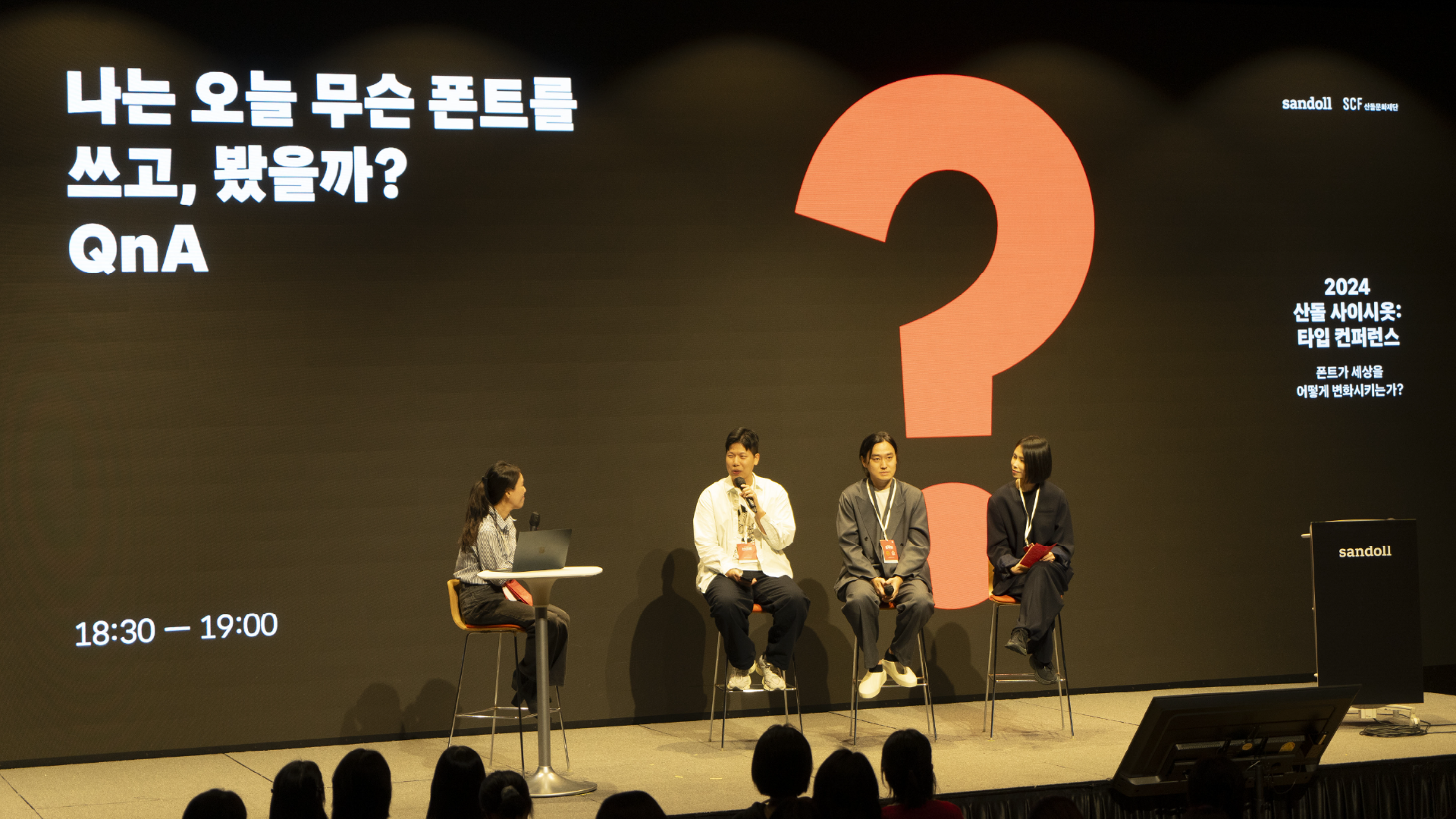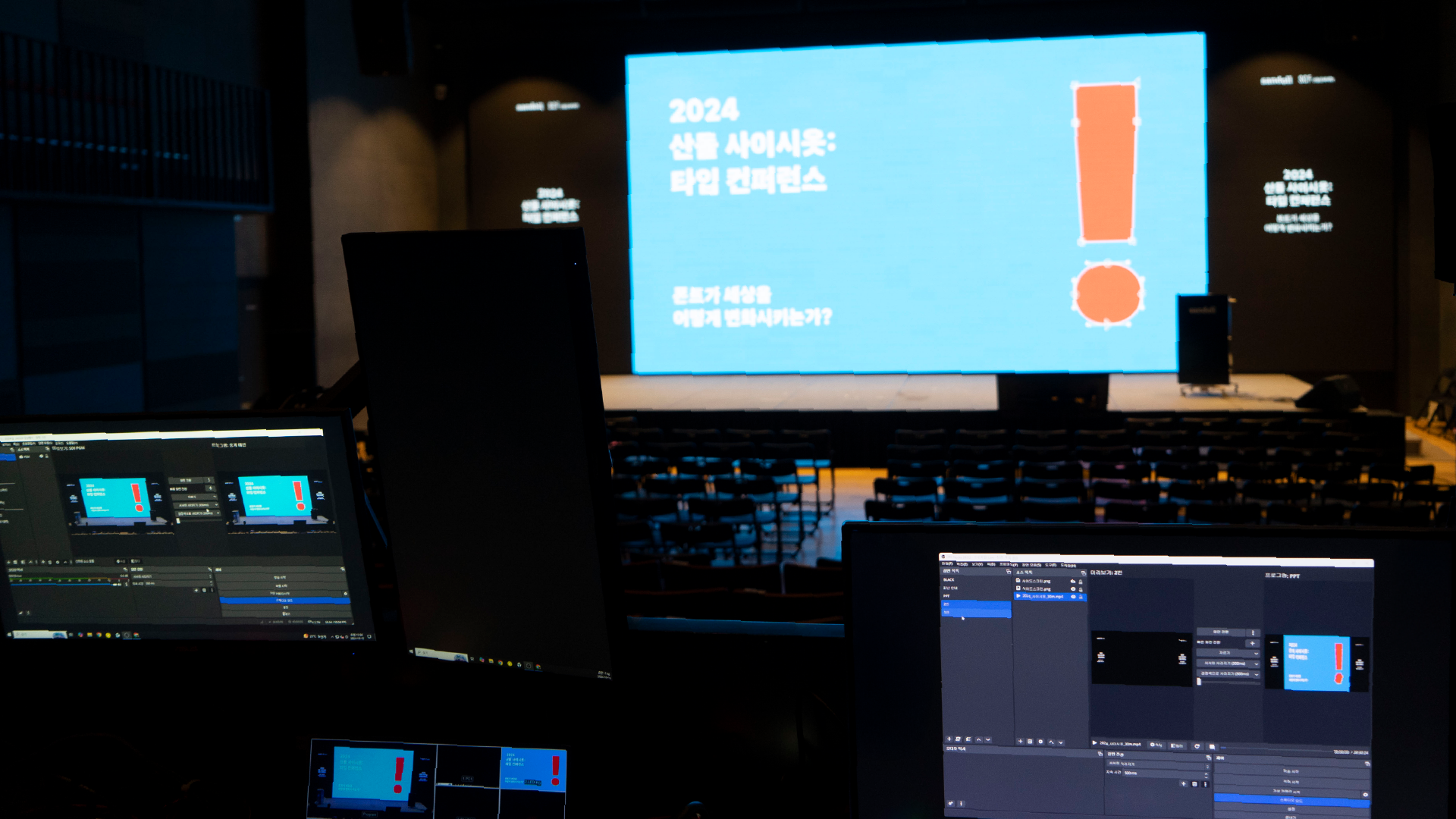
Gathering Voices
We were curious about the perspectives of those who use fonts. What kinds of challenges they face in their day-to-day work, and how fonts help address those challenges. We wanted to hear from experts across different fields whether fonts are truly changing the world—and to share those insights in their own, authentic voices. For this reason, a key goal in shaping this year’s program was to bring together professionals from a wide range of design disciplines, including UX, BX, graphic design, advertising, and editorial. Thanks to the many voices who responded to Sandoll’s call, we were able to share these conversations with you.
Following Part 1 (Link), we would like to briefly introduce the lectures from [2024 Saisiot] for those who were unable to join us on site.
New Environments Call for New Fonts: 「SD Minburi」
Speakers: Everyday Practice – Kim Gyungcheol, Kwon Junho, Sandoll – Lee Youbin
Moderator: Lee Suhyun
「SD Minburi」 (Link) is Sandoll’s new text typeface that continues the lineage of the Sandoll Gothic Neo series. In this opening session, the speakers explored the background, research, and testing process in depth.
The environments surrounding type have evolved over time. Sandoll divided these changes into production, display technology, and user preferences, putting forth the premise that “new environments call for new fonts.”
Sandoll covered the hypothesis testing and development story behind 「SD Minburi」, while Everyday Practice applied the typeface to existing design work for comparison. Junho Kwon explored its application in offline media such as catalogues, posters, and covers. Gyungcheol Kim led tests applying 「SD Minburi」 within the “Design+” website environment.
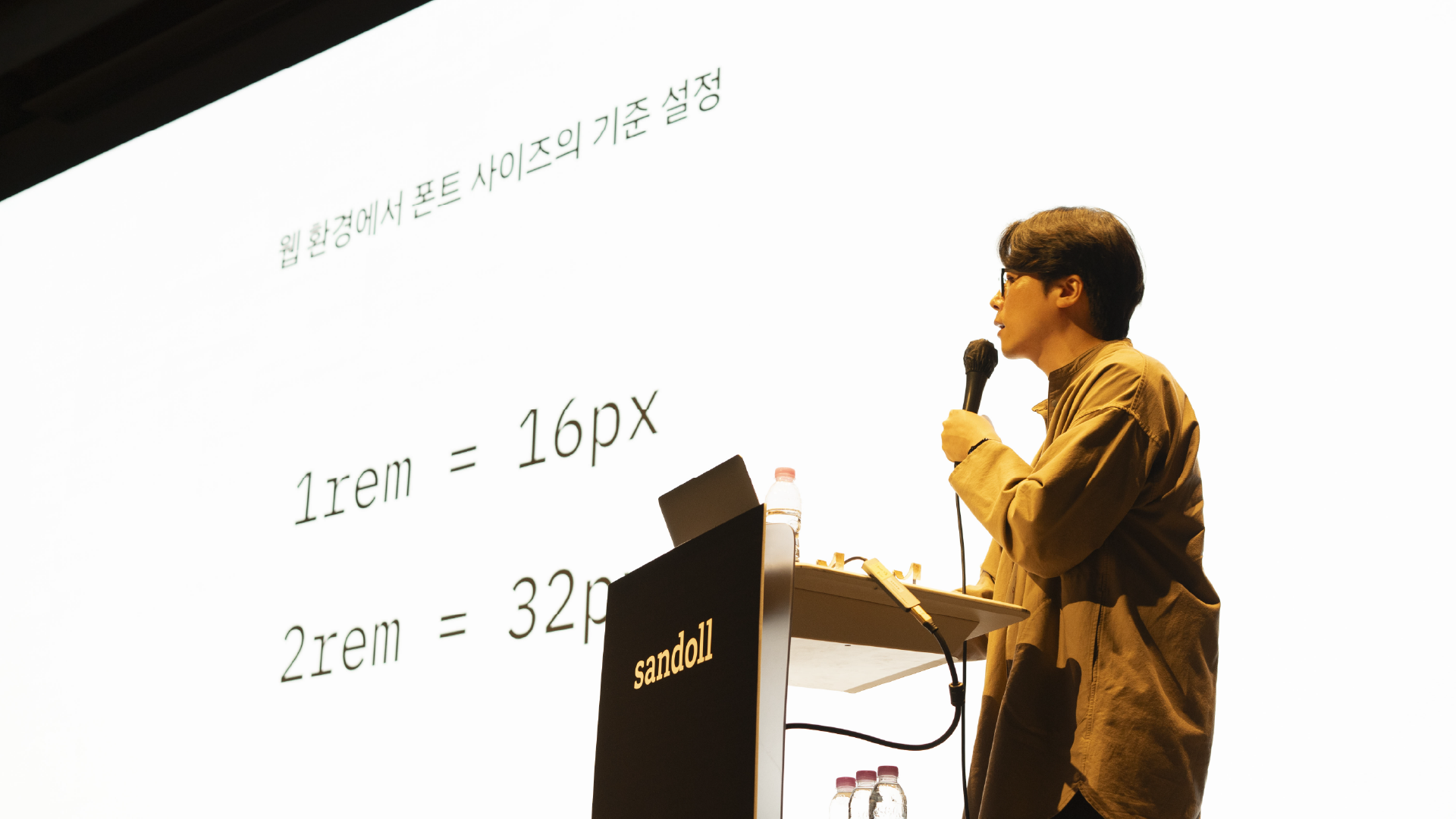
Brand + Fonts! Fonts? Fonts!
Speakers: Interbrand – Jang Junho
Moderator: Kang Minjae
This session demonstrated the impact of typography in brand identity building through a series of case studies. Using the example of E-pyeonhansesang’s “Sincerity Builds Homes,” the speaker showed how typography can define an emotional brand voice.
He emphasized that a custom font becomes both a part of the brand and the entire brand itself, outlining the considerations needed when designing one. It was a session filled with hands-on insights from the field. When the phrase “God is in the detail” appeared on screen, it was a reminder of how typography—the atomic element of design—changes the way a brand is perceived.
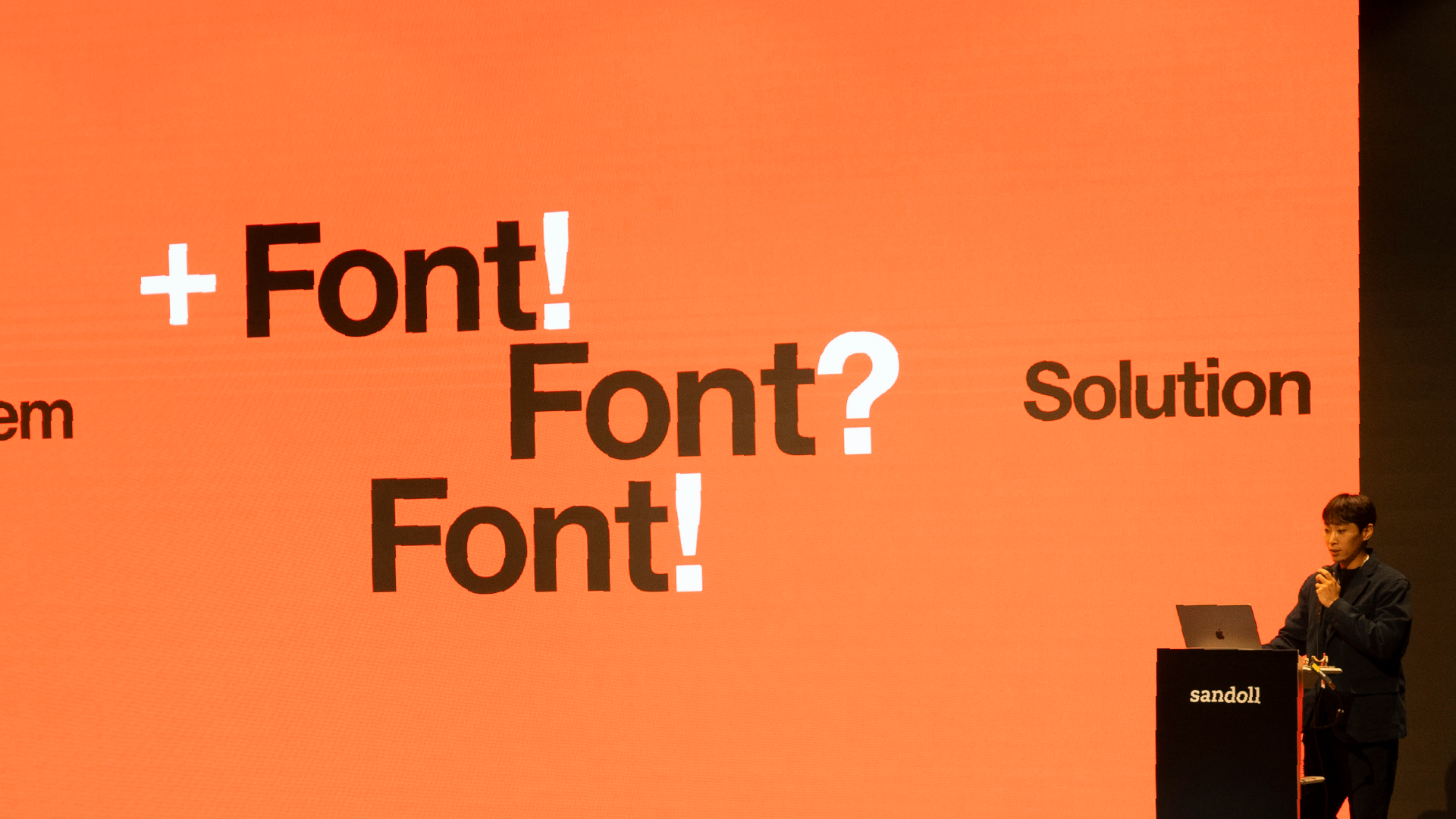
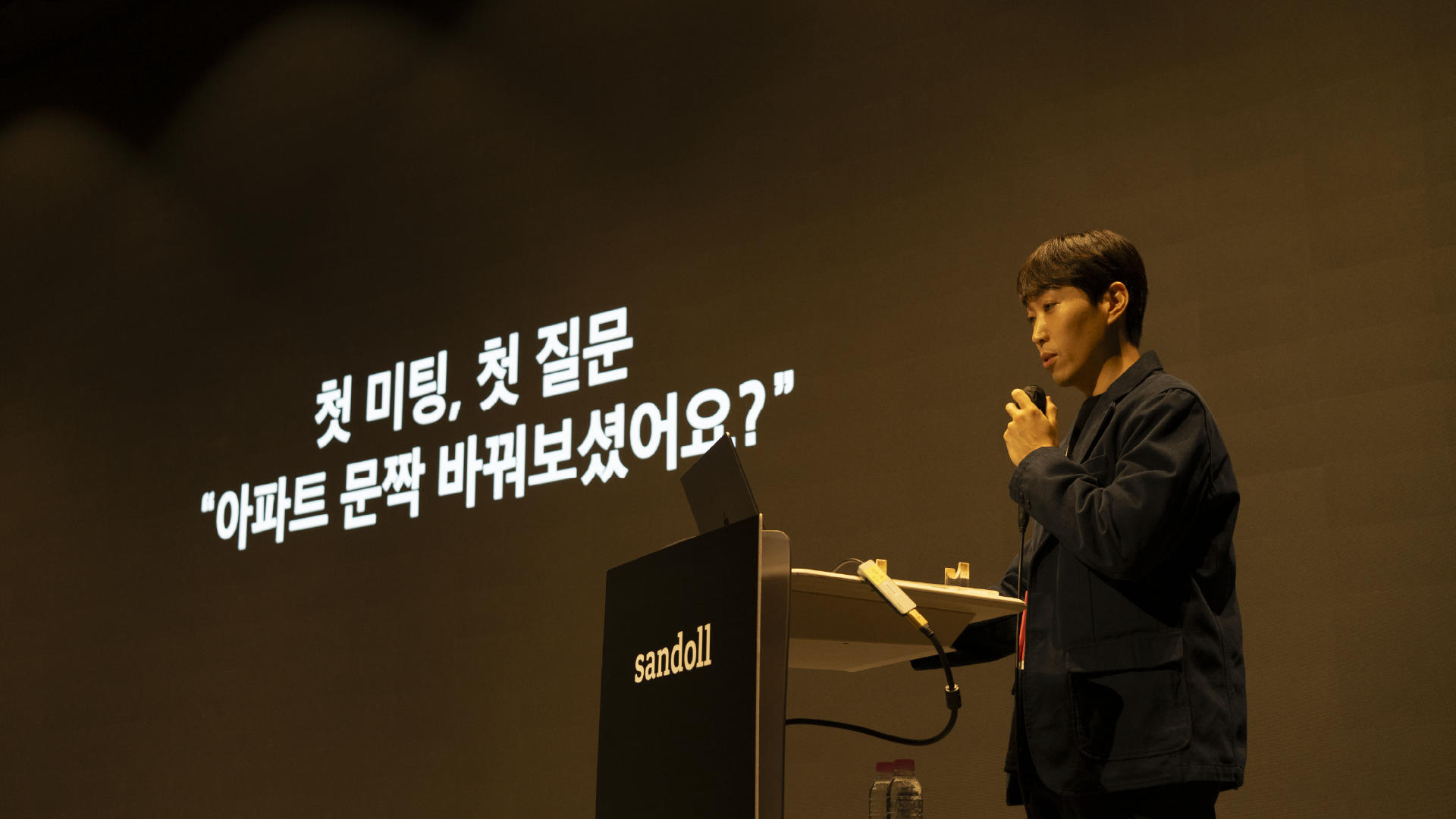
Fonts That Pay the Bills
Speakers: BAEMIN (Woowa Brothers) – Han Myungsoo
Moderator: Bae Seongwoo
BAEMIN’s fonts have moved beyond corporate branding to establish themselves as a form of visual culture that reflects the sensibilities of our time. The lecture offered an unfiltered look at why BAEMIN chose fonts as a core branding tool, as well as the process behind that decision and the outcomes it produced. BAEMIN has long treated fonts as a primary means of communication. Positioned on the fine line between uniformity and monotony, the talk explored how fonts contribute to shaping “BAEMIN-ness” and how the brand approaches consistency through typography. A more detailed account can also be found in the book Fonts That Pay the Bills, which shares the same title as the lecture. If you have an interest in fonts, you will likely find it an engaging read.
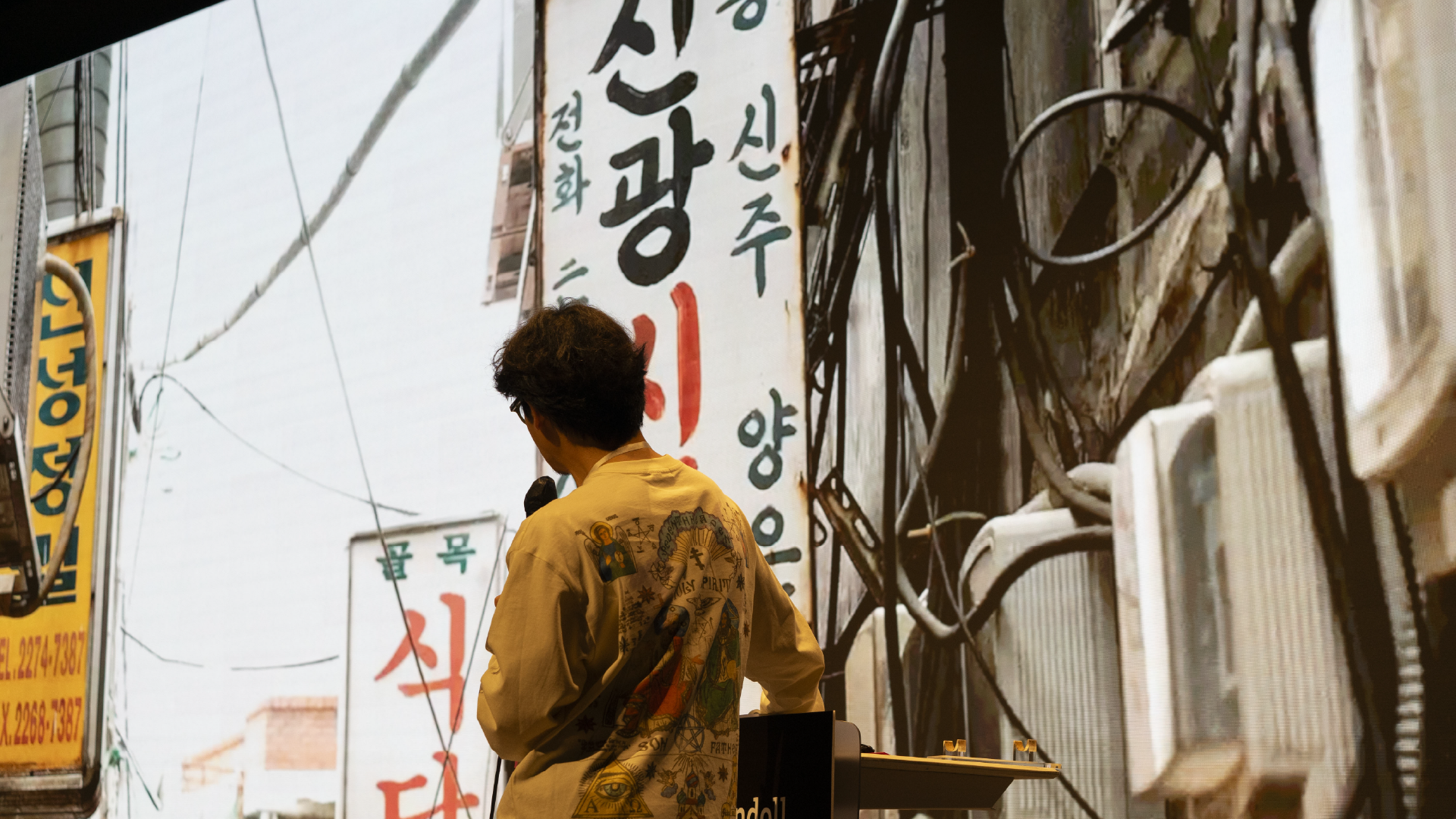
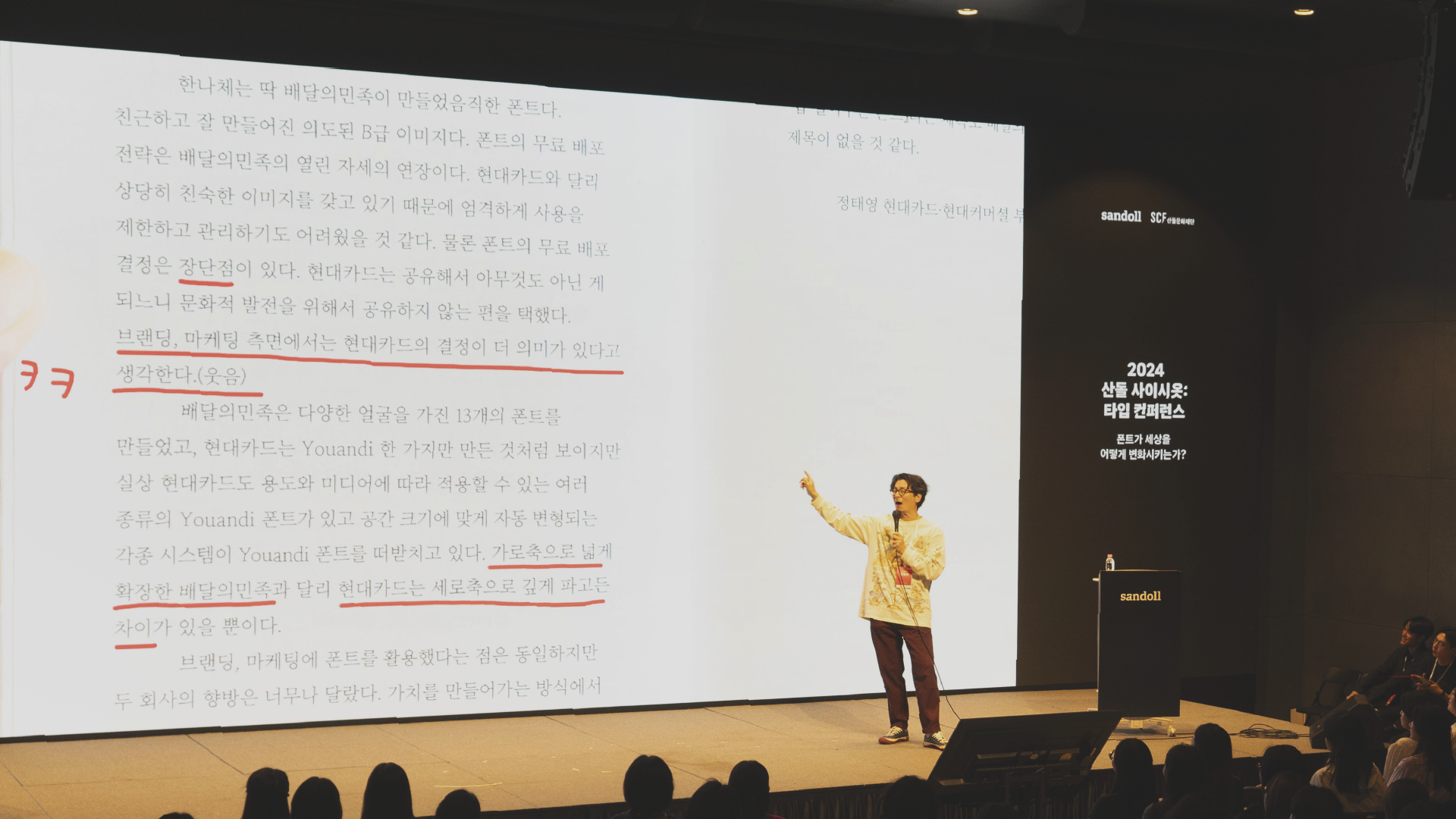
Emojis Start to Breathe
Speakers: Toss – Ko Hyunseon
Moderator: Bae Seongwoo
The lecture introduced the background and production process of 「TossFace」, an emoji font designed with Toss’s graphic style. Toss explored ways to improve work efficiency by turning emojis—one of the brand’s key visual assets—into a font. Beyond visual consistency, the talk shared how this approach fundamentally addressed issues such as development inefficiencies and problems caused by OS updates. In particular, when using OS-provided emoji fonts, it was impossible to control variations caused by different OS versions. With 「TossFace」, Toss was able to deliver a consistent experience regardless of OS version. The lecture examined new possibilities for fonts as problem-solving tools that drive meaningful gains in efficiency.
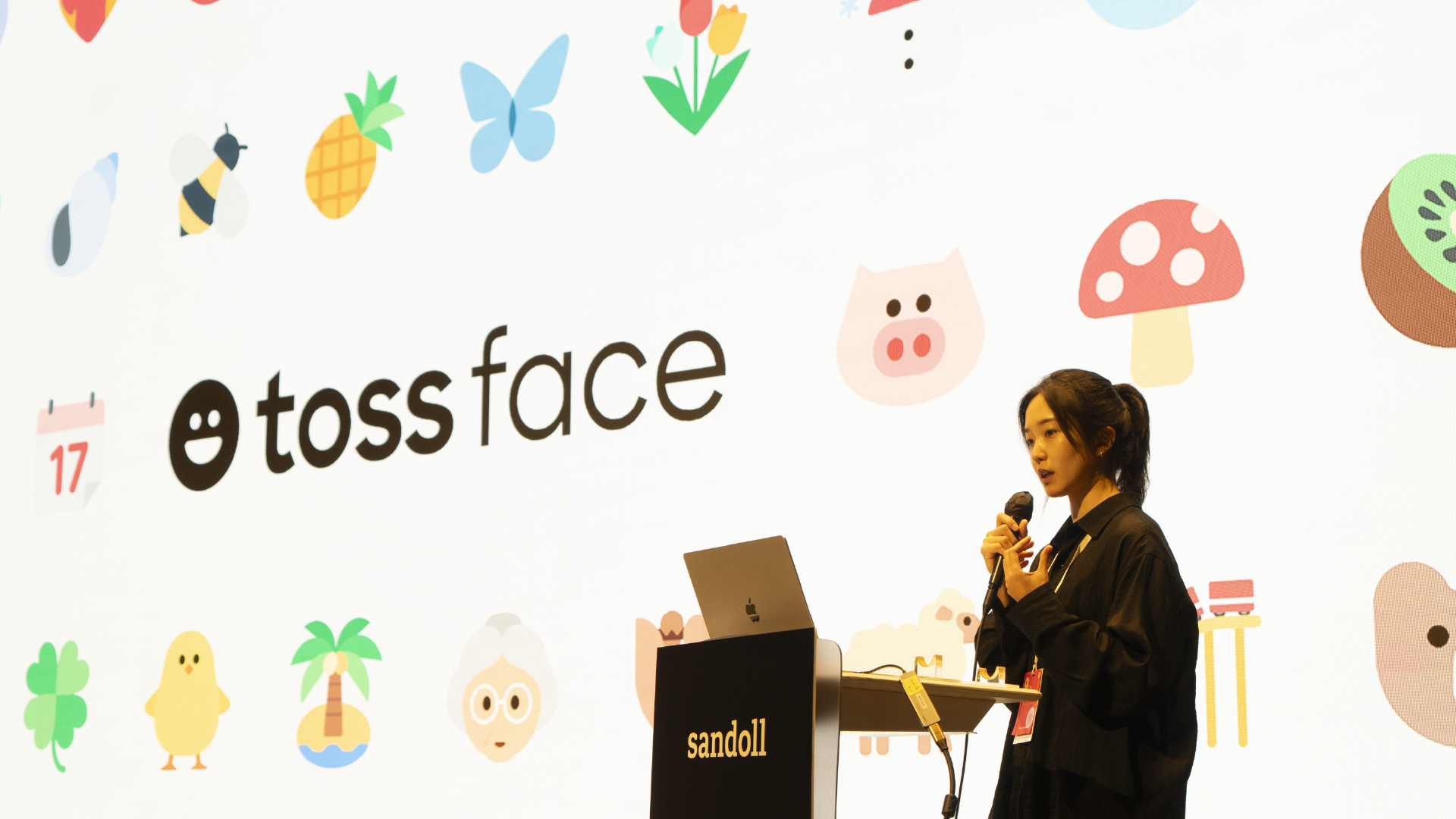
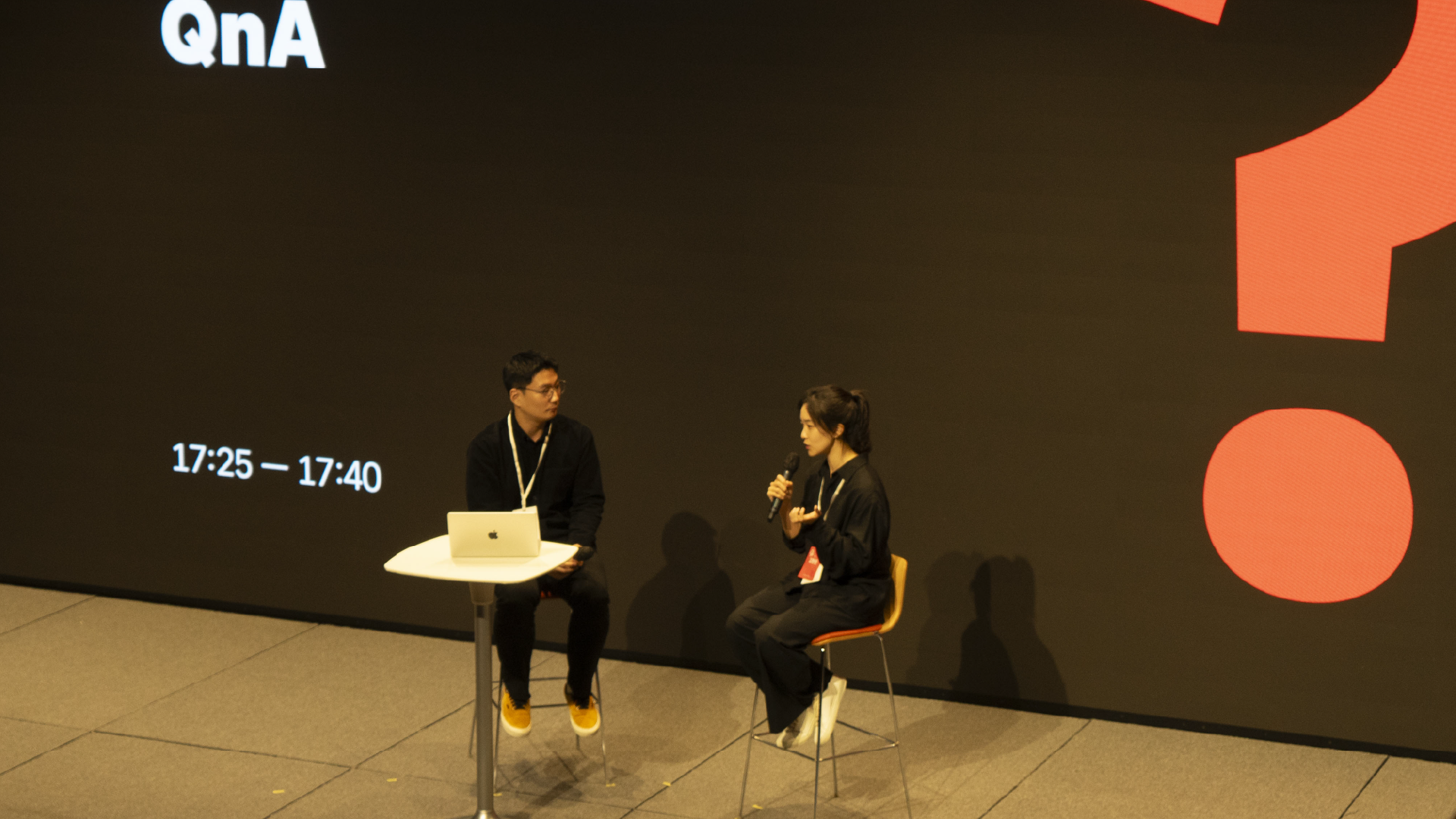
What Fonts Did I Use—and See—Today?
Speakers: Sandoll – Kim Chorong
Panel: Formula – Shin Gunmo, Studio Joh – Song Jaewon, Ham Jieun
This lecture analyzed and shared extensive font usage trends across different design fields. Participants were able to review a wide range of statistics based on criteria such as font categories, letterform construction, stroke contrast, and usage. Building on the shared data, the discussion examined real-world applications with industry professionals from graphic design (Gunmo Shin), advertising and video (Jaewon Song), and book and publishing (Jieun Ham). The lecture offered candid insights into the factors that influence font selection and the fonts most frequently used in practice. It also explored recent and notable design directions across the industry, including trends that diverge from established patterns, to trace broader shifts and changes in font usage. Finally, referencing the theme of [2024 Saisiot], the panelists shared their perspectives on whether fonts can change the world.
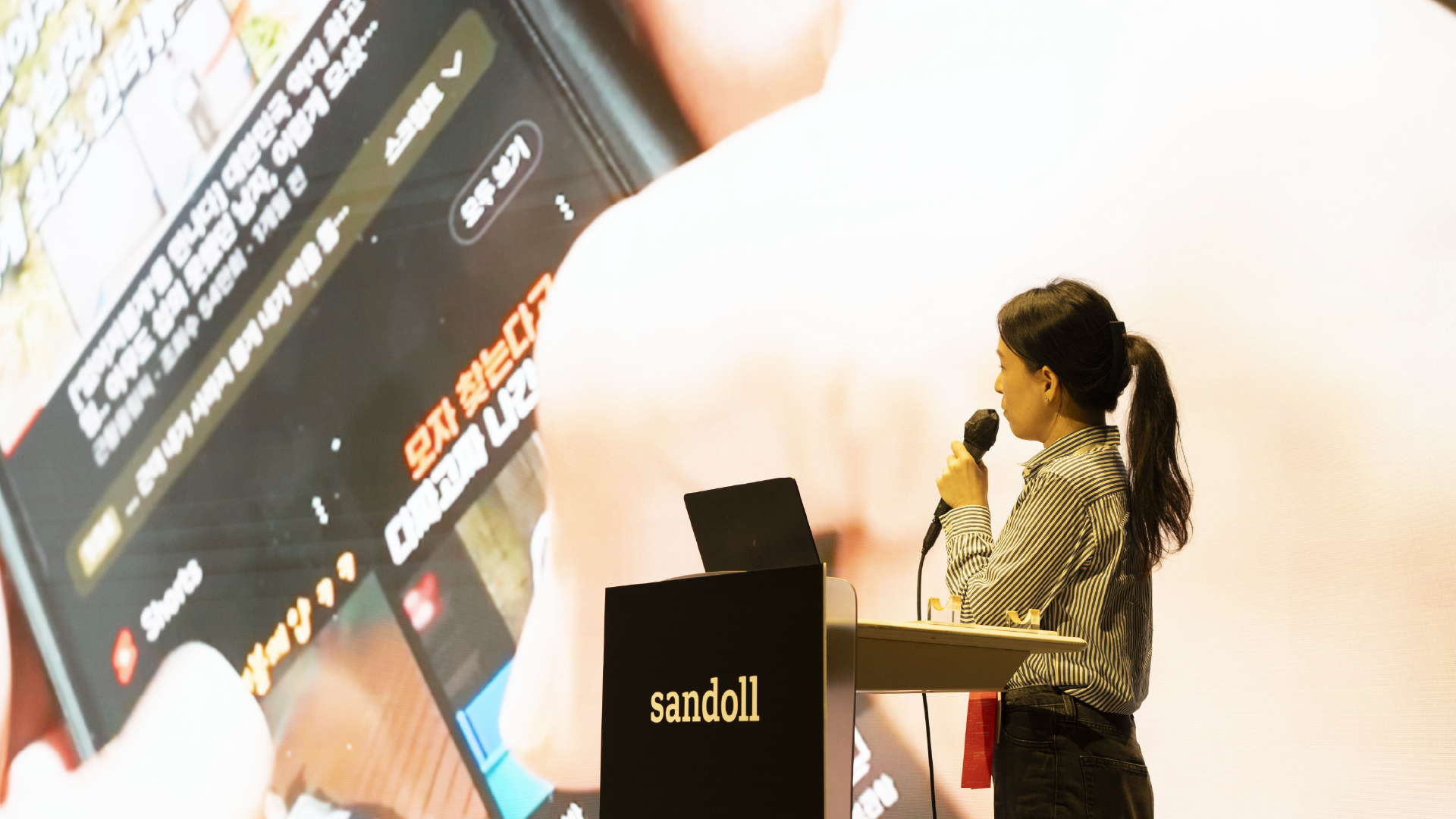
Can Fonts Change the World?
Ham Jieun, Book Designer
In publishing, we can feel the shift. Cloud-based type services have improved usability and created more freedom around licensing. Fonts, I believe, shape the visual landscape of everyday life. Small things accumulate—and together, they can change the world.
Song Jaewon - Studio Joh
Fonts alone can’t stop a war—so in that sense, no. But if you redefine what “the world” means, then yes, absolutely. Fonts sharpen the resolution of communication. Most conflicts begin with miscommunication. If the subtlety of typography expands into other communication fields, it affects outcomes. The difference may be only 1 millimeter, invisible to most—yet deeply significant to us. Over time, that greater clarity can change the world.
[2024 Saisiot] was a space that went beyond the font industry to explore the potential of fonts and share their possibilities. By examining how fonts, as tools, can influence not only design but also culture, technology, and everyday life, we discussed the world that fonts can help transform. It was a meaningful opportunity to reaffirm both collaboration within the industry and the potential for growth beyond it. We hope that [Saisiot] served as a foundation for you to move toward the future as well. Going forward, Sandoll will continue to open spaces for diverse discussions centered on fonts, guided by our own philosophy. We are already preparing [2025 Saisiot], so please look forward to it. See you again next year!